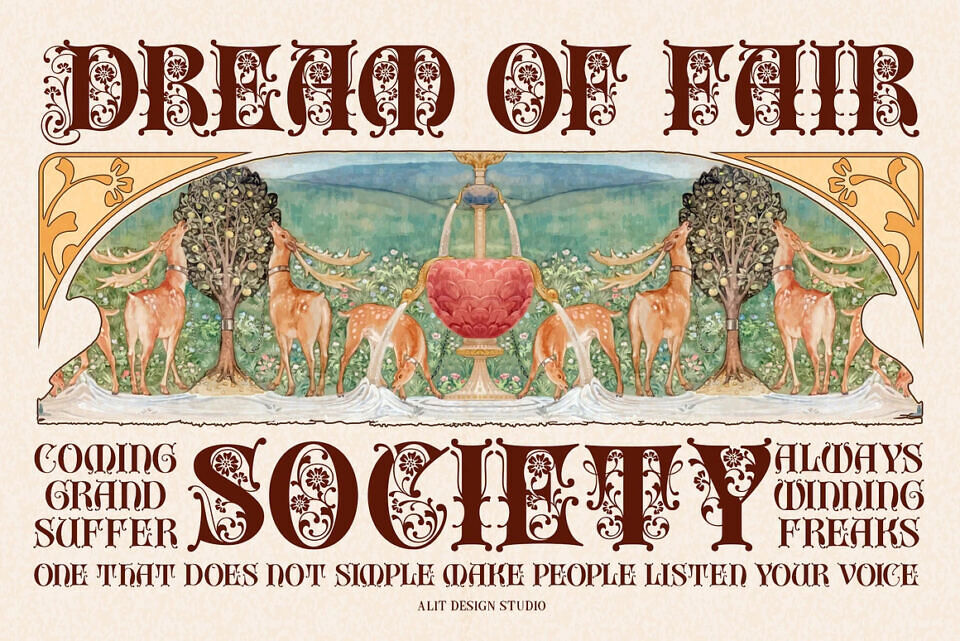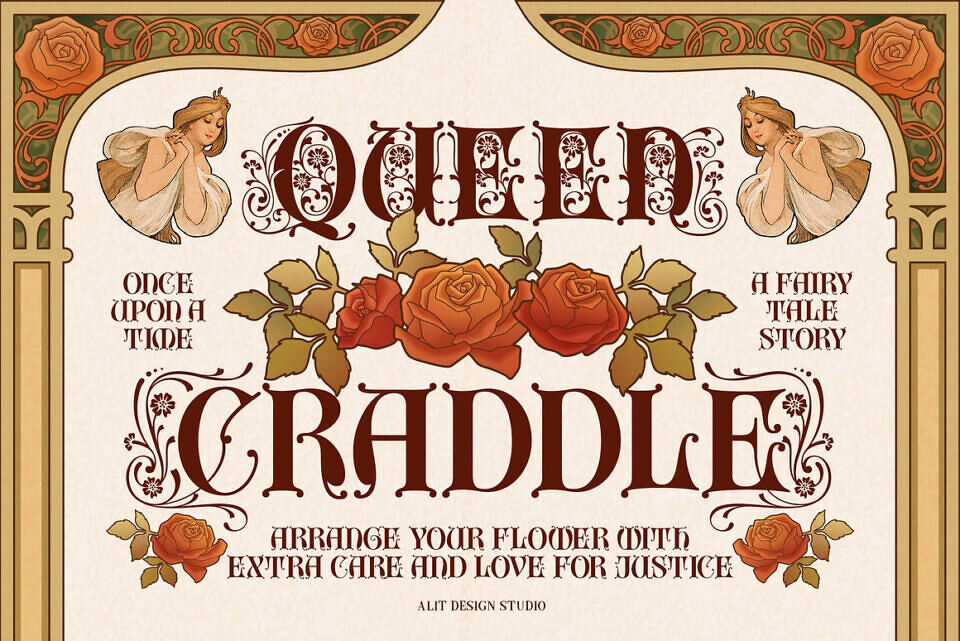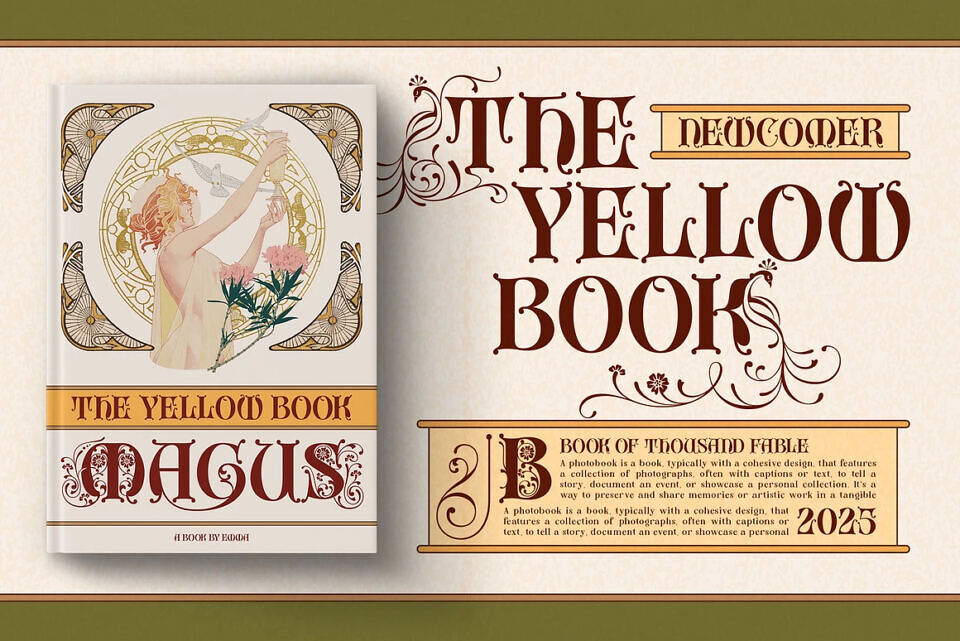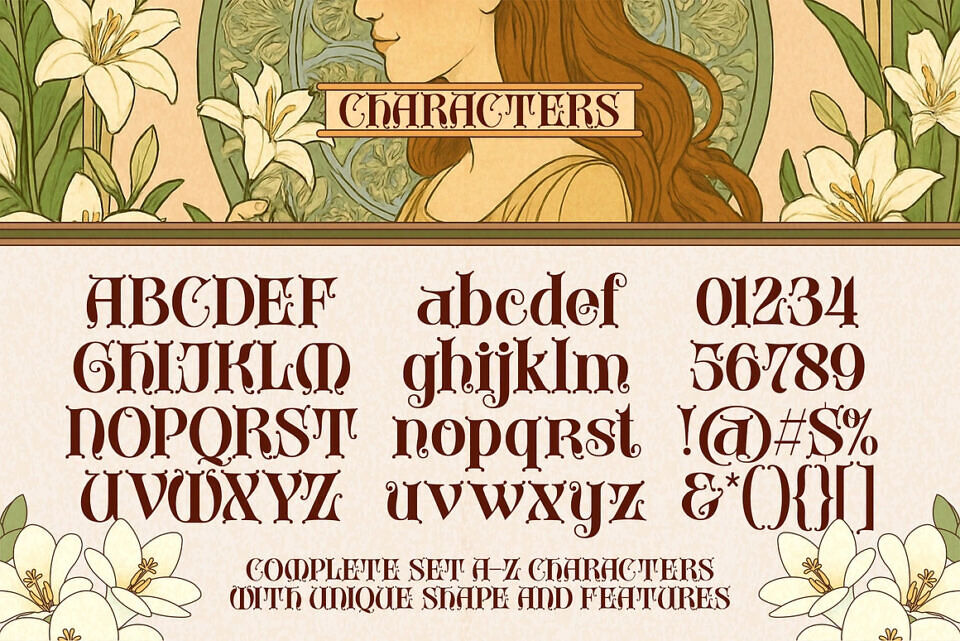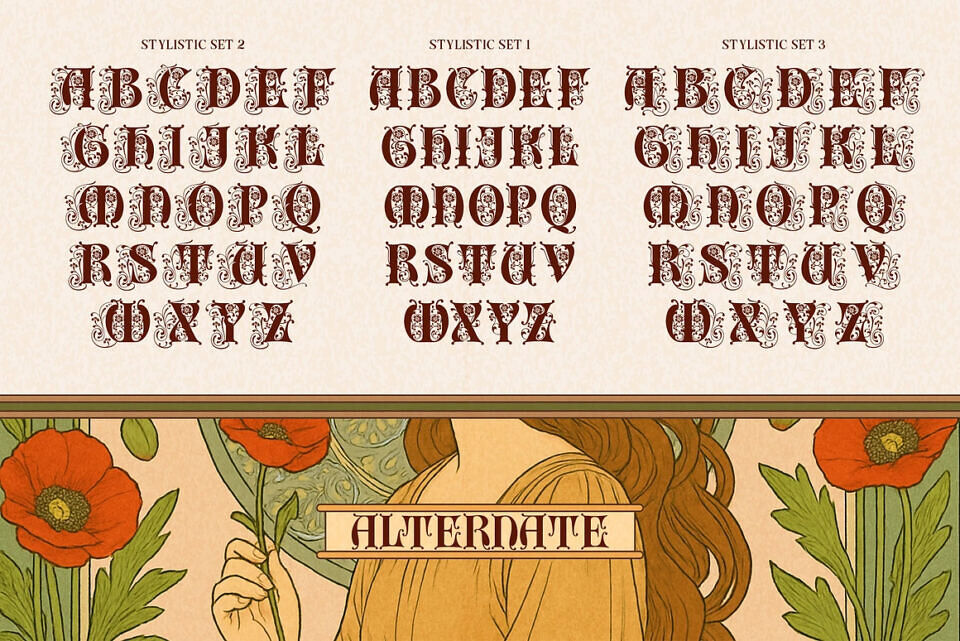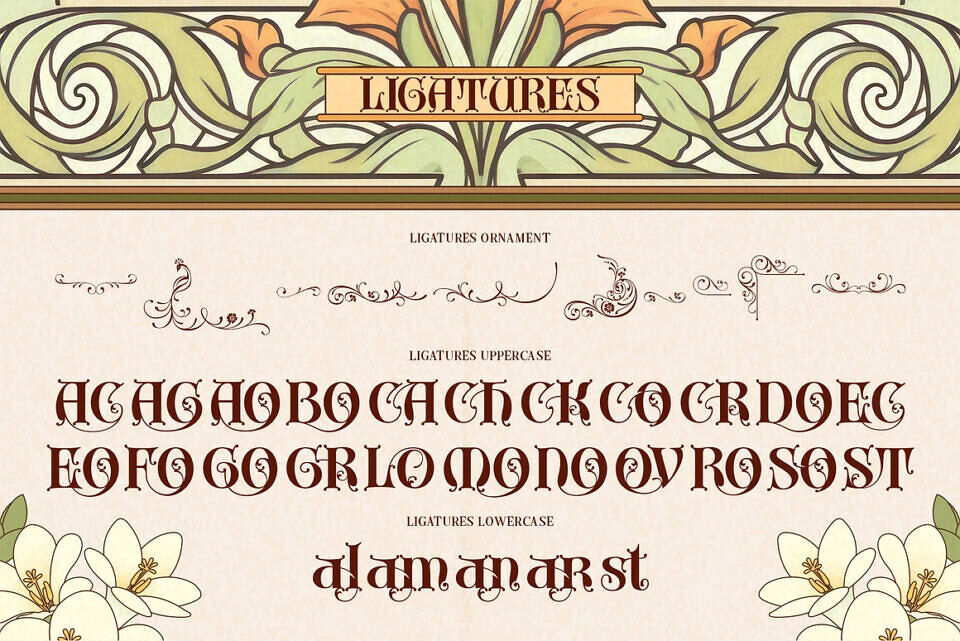
Grand Malon is a luxurious Gothic display font that fuses vintage charm with modern versatility. Inspired by antique manuscripts and classic Art Nouveau flair, it features intricate swirls, floral accents, and peacock feather motifs woven into each letter. With 954 glyphs, including stylistic sets, alternates, and ligatures, Grand Malon offers limitless creative expression.
Perfect for branding, invitations, book covers, packaging, and apparel, this typeface adds refined sophistication to any project. Its multilingual support ensures global reach, while its detailed craftsmanship turns every word into a work of art. Grand Malon isn’t just a font—it’s a visual symphony of elegance and storytelling.